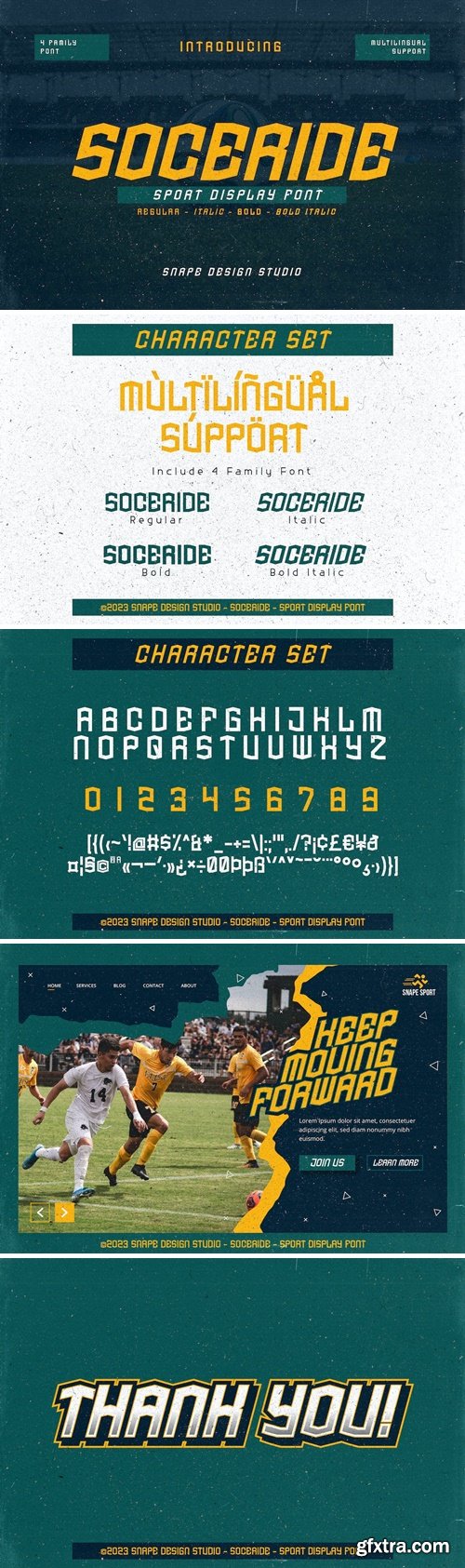
Soceride - Sport Font
Soceride is sport font, designed to draw attention and highlight any project that requires a bold feel, look powerful, created to add a vibrant touch to your sport-inspired designs. Suitable for sport design, team, jersey, league, movie, documenter, film, logo, poster, game, book cover, headlines, title and many more projects. Add this font to your creative ideas and notice how it will make them stand out!